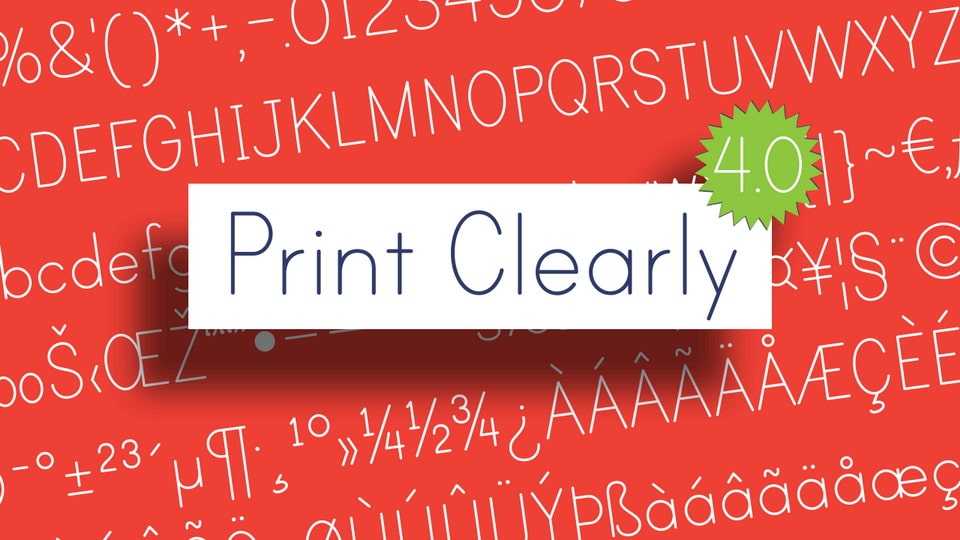
Download Print Clearly font, a textface that has the look of a primer worksheet for teaching handwriting with its clean, simple letterforms and consistent spacing.